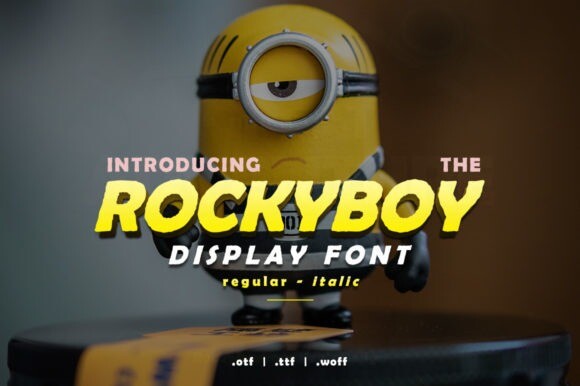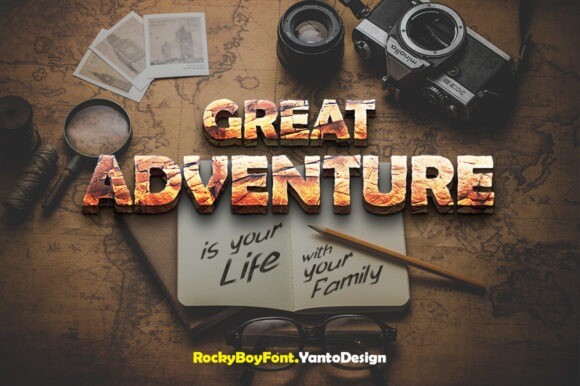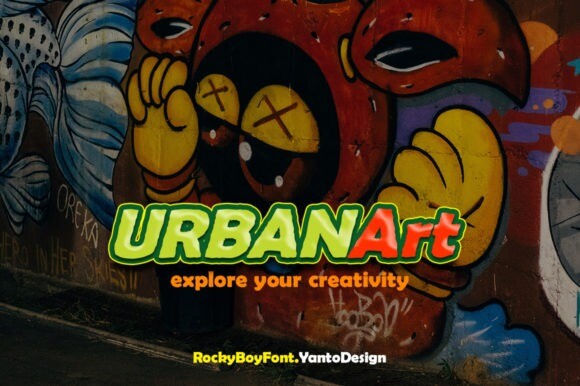
Rocky Boy Font
Rocky Boy is a spectacular display font. It is very suitable for poster, for logo, music cover, clothing, and many many cool design projects.